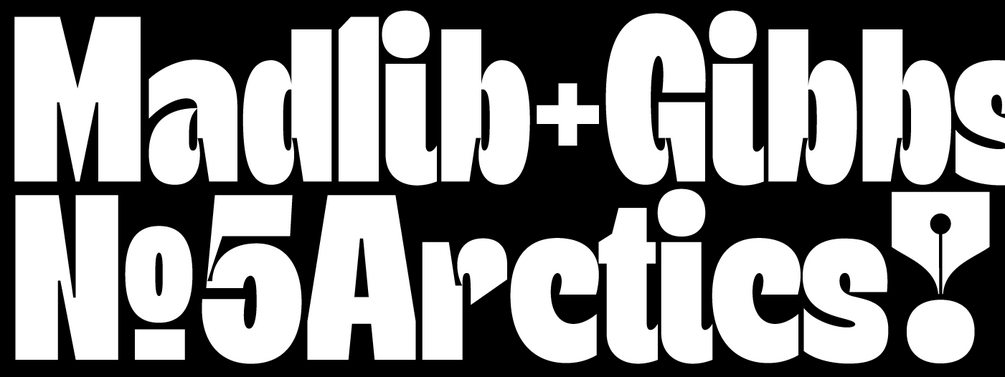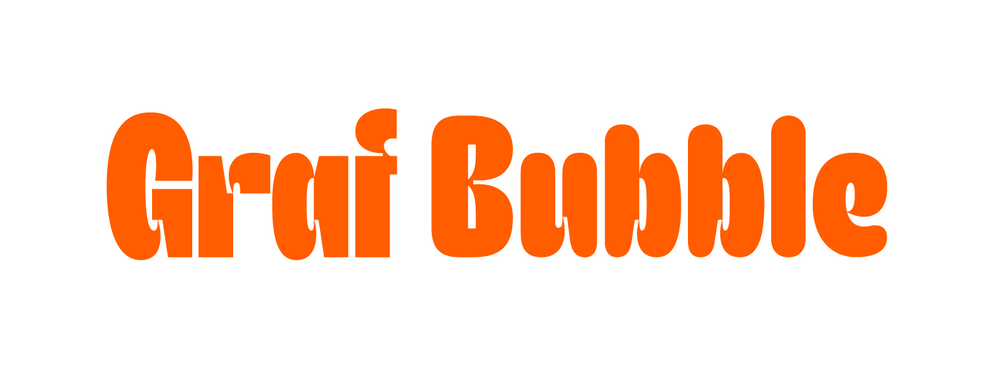
Graf
Graf is new display typeface designed to make an impact. It has a classic look but yet it's very modern. It works for everything from Sports, Tech, Editorials to fun branding projects. The smiling ink-traps are making the font either have a strong stand or a friendly approach depending on the medium used. It comes packed with tons of alternates to help you create unique combinations. Designed by Andrei Robu. Stylistic Alternates, Ligatures. +Otf, Woff files.
Available in 2 styles: Graf and Bubble (rounded).